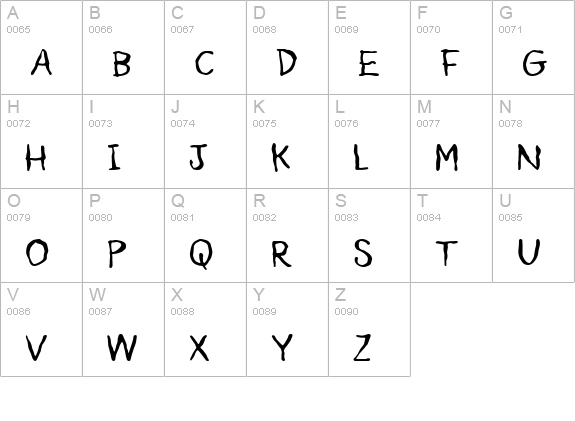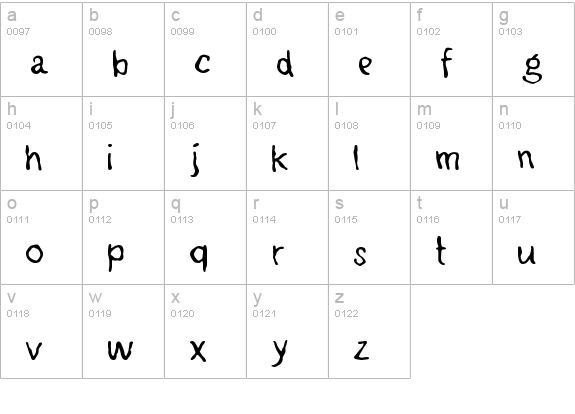
Talk to the hand Font Details
Introducing the captivating and expressive Talk to the Hand font! This unique typeface exudes personality and attitude, making it perfect for adding a touch of sass to your designs. With its bold strokes and quirky details, Talk to the Hand font is sure to make a statement and command attention wherever it is used. The best part? Talk to the Hand font is completely free to download at FontsMarket.com! This means you can easily incorporate this eye-catching font into your projects without breaking the bank. Whether you're creating posters, social media graphics, or branding materials, Talk to the Hand font will bring a fun and dynamic element to your designs. Don't miss out on the opportunity to elevate your creations with the Talk to the Hand font. Download it today and let your imagination run wild with this exciting and playful typeface!